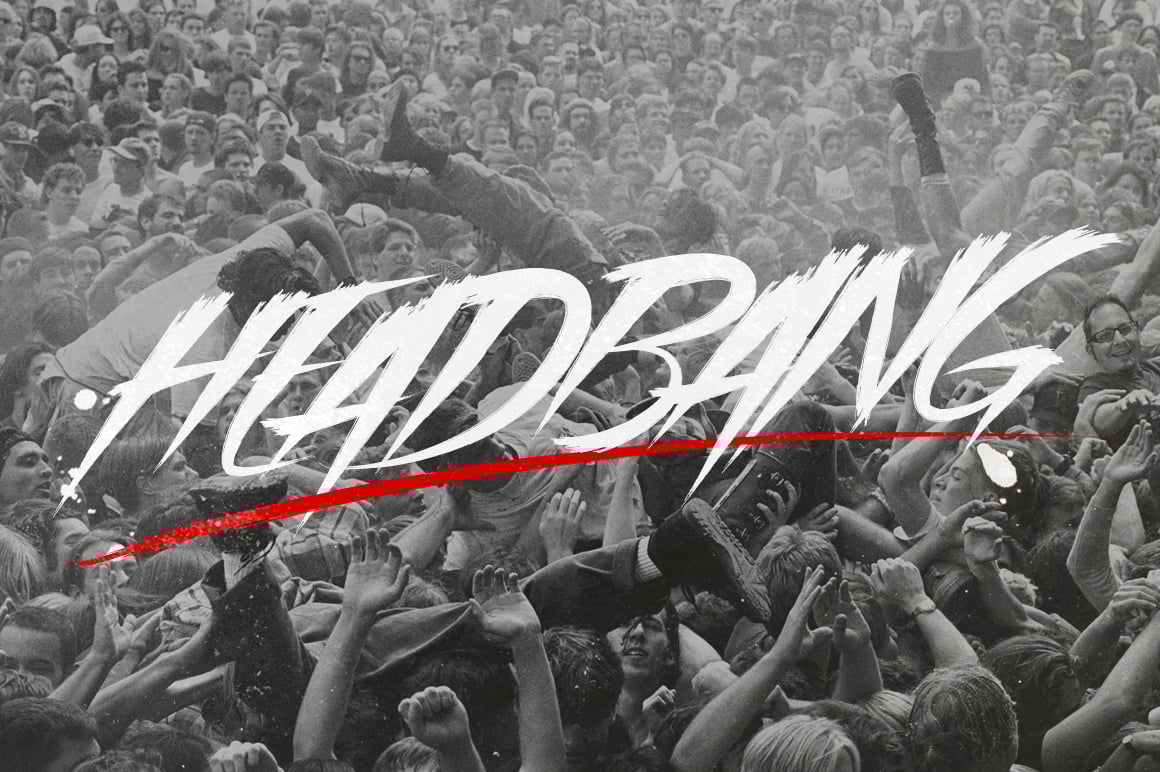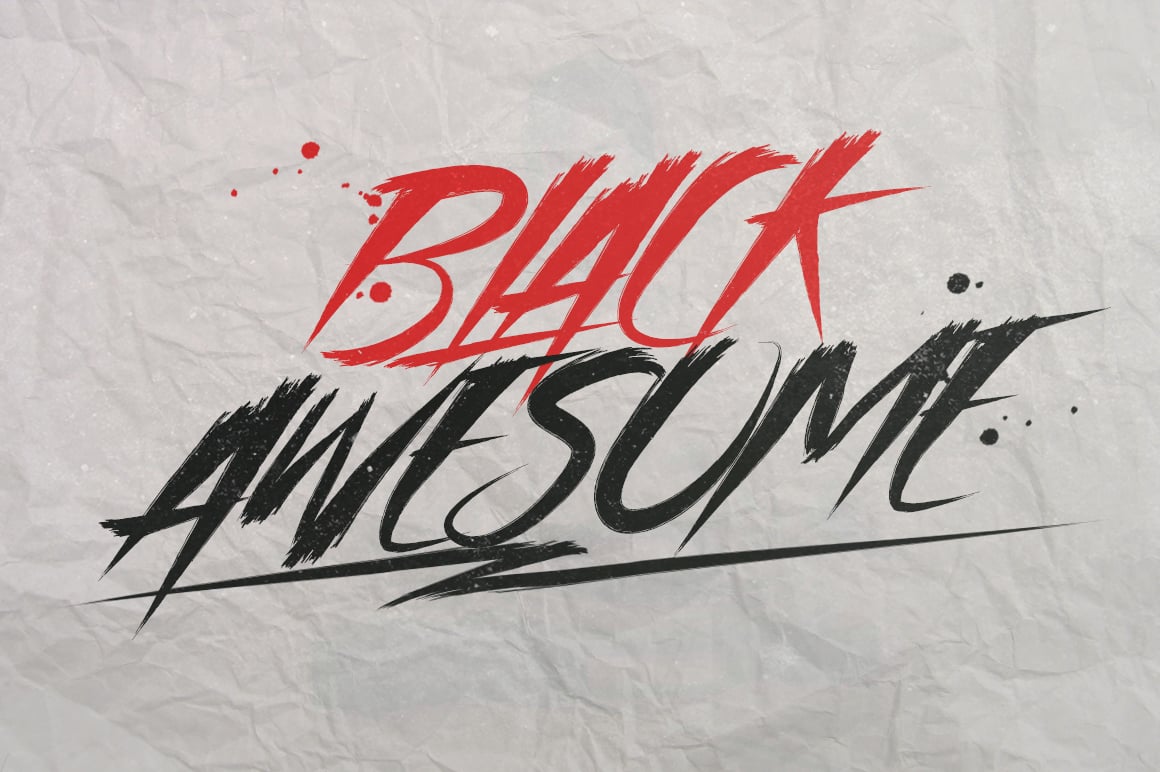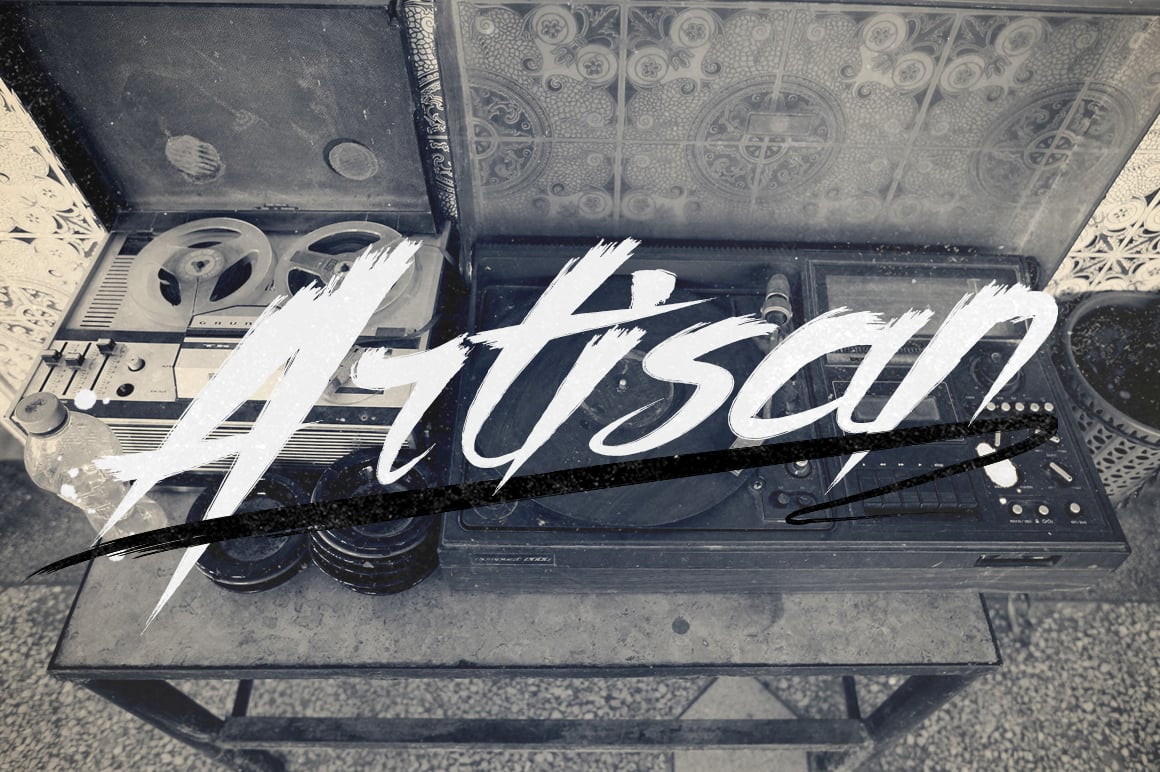
Asia Otasi Brush Typeface
Give your designs an authentic brush handcrafted feel. “Asia Otasi Brush Typeface” is perfectly suited to stationery, logos and much more.